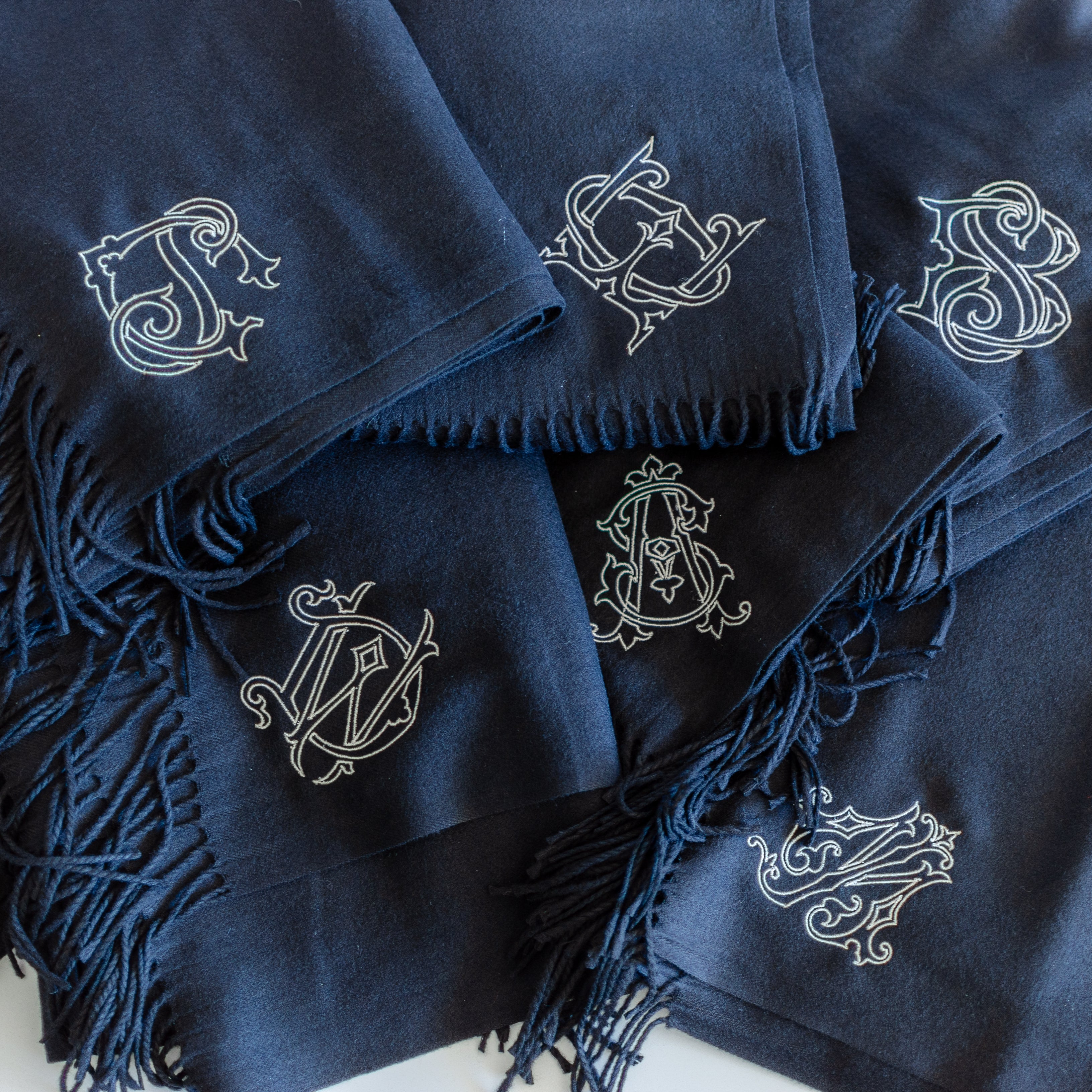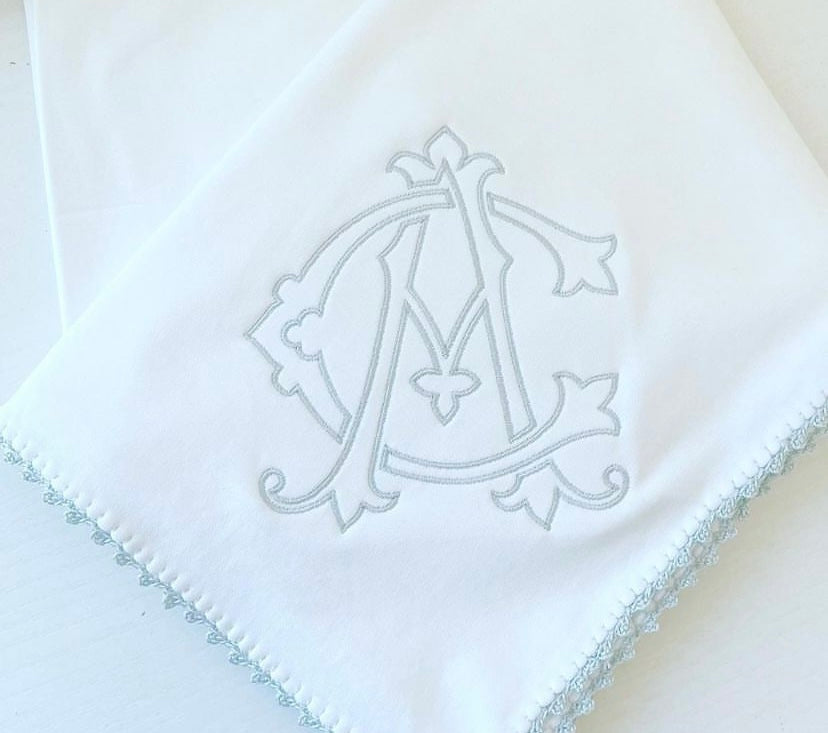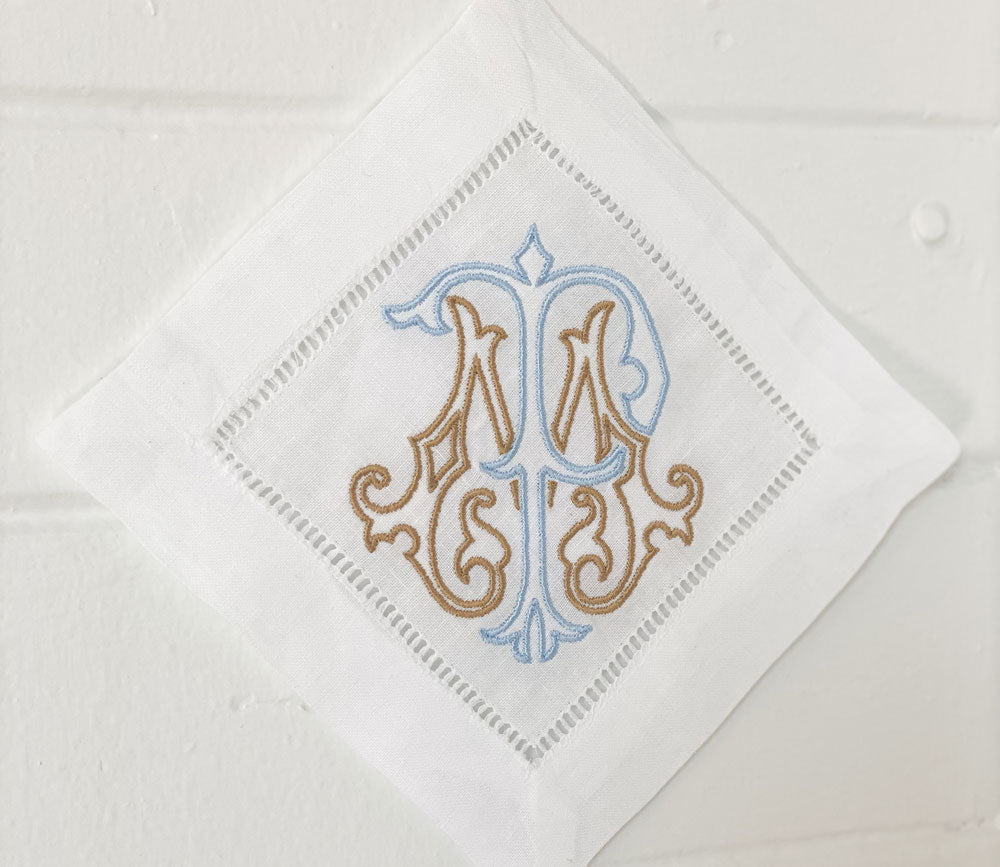
Monogram Chic Outline Font for Embroidery
Each 2-letter monogram has been meticulously created so that the 2 letterforms complement each other to create an elegant, well-designed monogram. Perfect for embroidery, the careful attention in the digitization of each design makes personalization unique and beautiful! Single letters are not included.